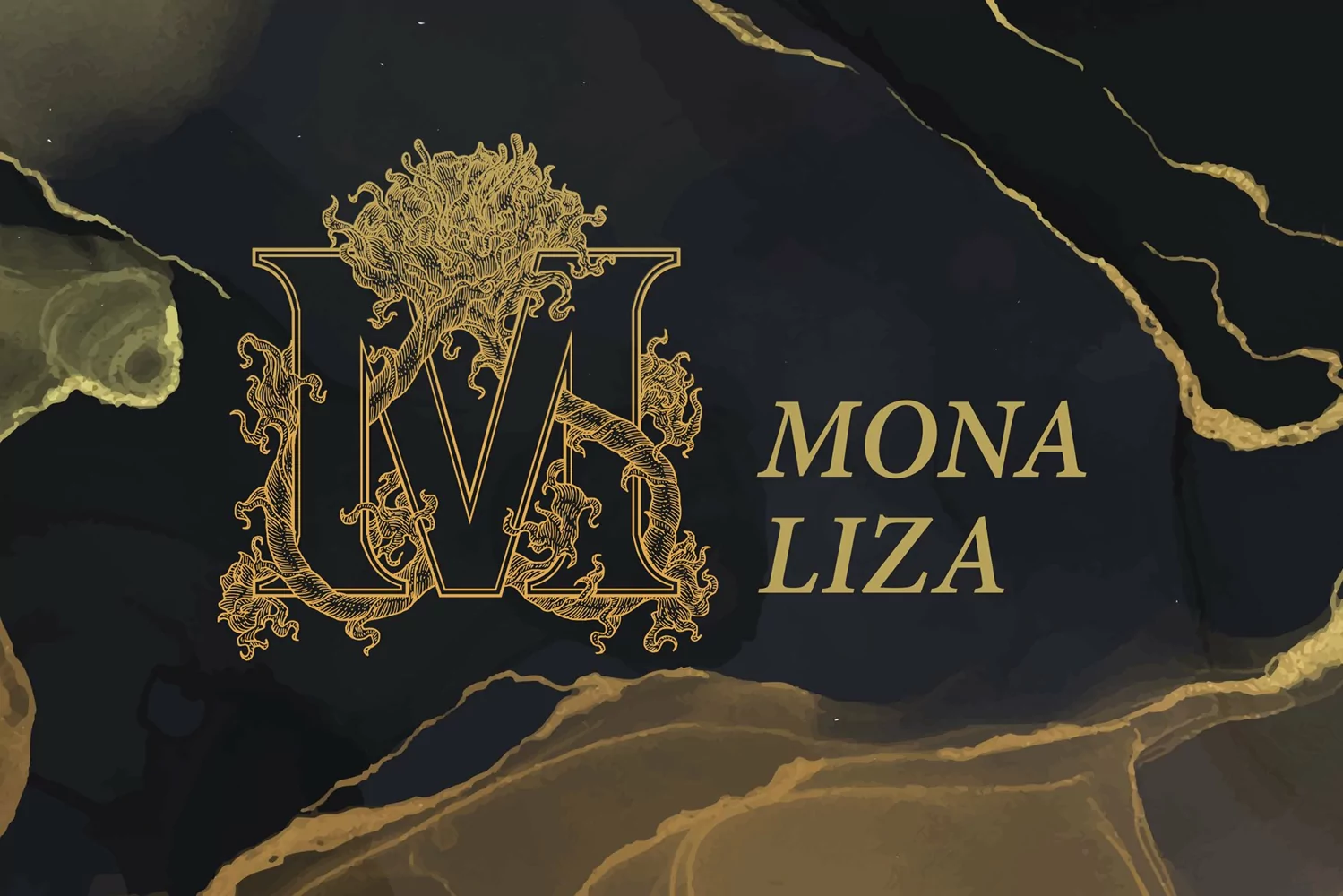
Vintage Floral Monogram
Vintage Floral Monogram is a monogram font form that is very unique. carefully hand-crafted. So that each form has its own exotic shape that is different from the others. With truly dazzling details and a very meaningful classic touch, making this monogram truly stand out for various crafting and design needs.